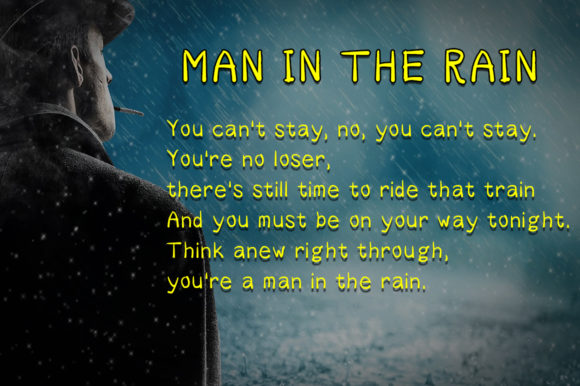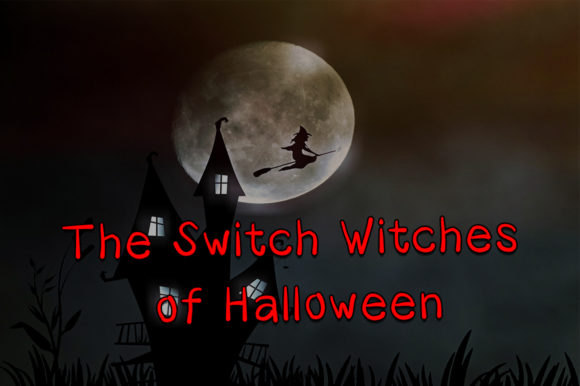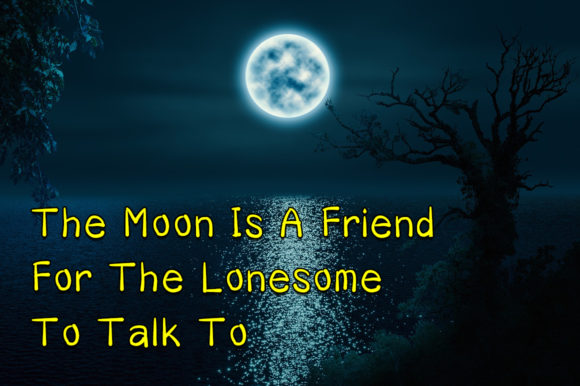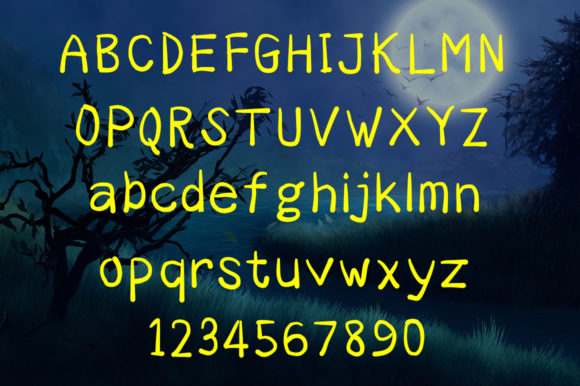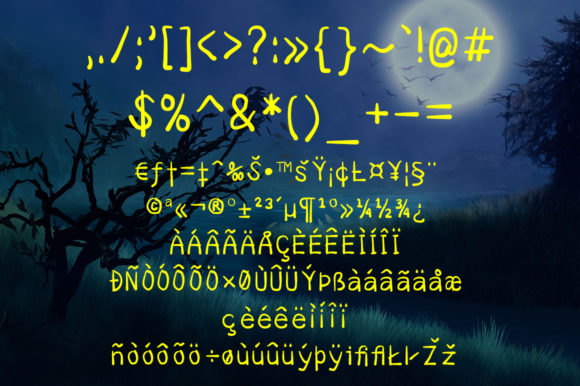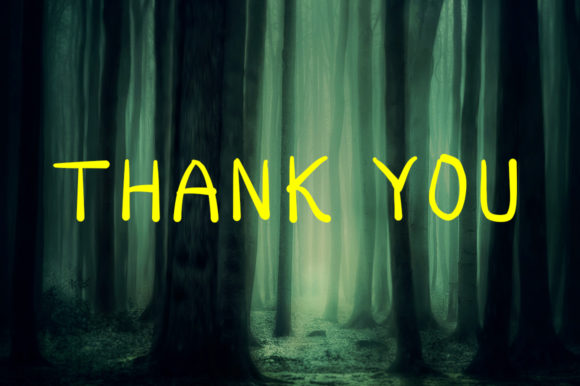
Kagura Font
About Kagura Font
The Kagura is a script font with a soft feel. It’s easy to read which makes it perfect for titles and display designs. This handwritten font is friendly and can add some beauty to all your designs.